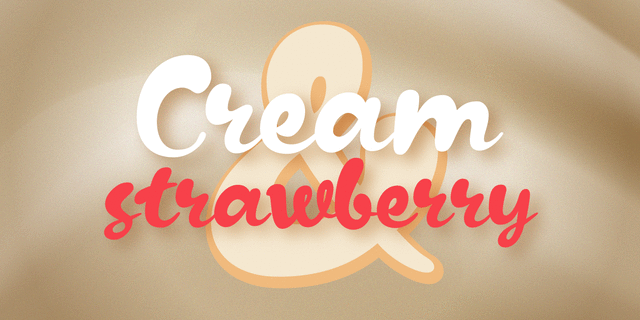
About Kapelka New is a soft and friendly display face based on the principles of writing with a soft pointed brush. Kapelka is suitable for packaging design, children's books headlines and any other domestic and informal purposes. The typeface was designed by Zakhar Yaschin and released by ParaType in 2015.
Associations for font family Kapelka NewTypeface personality and character:
naive, cheerful, delicious, liquid, dashing, unstable, agile, restless, funny, glad, sweet, playful, berry, fruit, spoiled, dynamic, affable, children, alive, cute, cartoonish, New Year, home, summer, happy, quick, freewheeling
Cartoon, animation, dessert, jam, candies, marmalade, cafe, children's book, confectionery, sweets, ice cream, coloring, handmade, pizza, zoo, pet shop, animals, recreation, camp, bakery, circus, New Year, bazaar, sauce, ketchup, fast food, food, bubble gum, diaper, chips, aquadiskotheque, graphics, illustration, house, little, watercolor, water Typeface associated with age: